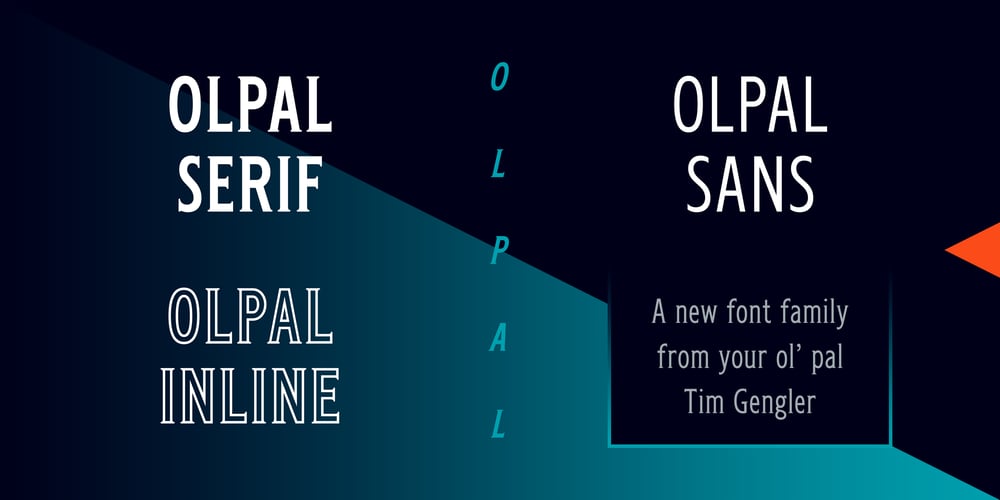
Olpal
Olpal font
Olpal Font Family was designed by Tim Gengler and published by Bunny Dojo. Olpal contains 12 styles and family package options. A Display Serif, a Monoweight Sans, and an Inline form combining the two, Olpal is a versatile companion for your next adventure.With surprising vitality for a workhorse font, Olpal embraces any job – and whistles while it works.Neutral – with a hint of pizzazz – the font’s strong legibility and compressed footprint make it a brilliant fit in any environment.